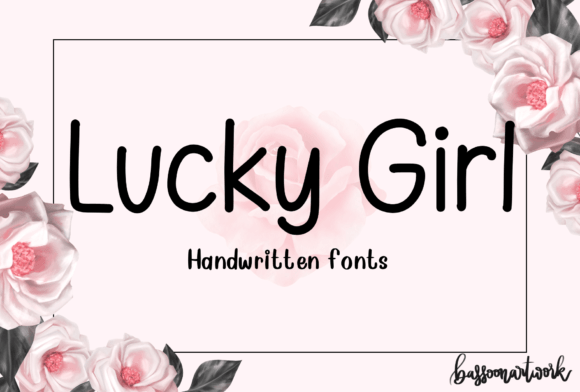
Prepare to be smitten by Lucky Girl Font, the captivating handwritten font that exudes charm and playfulness. Its whimsical strokes add a touch of magic to any project, whether it's a heartfelt birthday card, a delightful Mother's Day greeting, a warm Christmas wish, or a romantic Valentine's Day message.
Let your imagination run wild as you explore the endless possibilities of Lucky Girl. Create unique T-shirts that reflect your vibrant personality, design mugs with witty quotes that spark joy, or add a personal touch to your planners and pillows with its charming characters. Unleash your creativity and transform everyday items into expressions of your unique style.
Lucky Girl's versatility extends beyond personal projects. It's an ideal choice for small businesses looking to make a lasting impression. Craft eye-catching posters that draw customers in, design stickers that add a pop of fun to your products, or create keychains that leave a lasting reminder of your brand. Lucky Girl is the perfect companion to help you showcase your products with flair and creativity.
But what truly sets Lucky Girl apart is its ability to evoke emotions and create connections. Its charming strokes have a disarming effect, inviting viewers to engage with your content on a deeper level. Whether you're a creative professional, a small business owner, or simply someone seeking a touch of whimsy in their life, Lucky Girl Font is the perfect choice to add a spark of magic to your projects.
So, embark on this delightful journey with Lucky Girl Font and let your creativity soar. With its versatility, charm, and emotional appeal, it's the perfect companion for anyone looking to make a lasting impression. Its endless possibilities await your exploration.